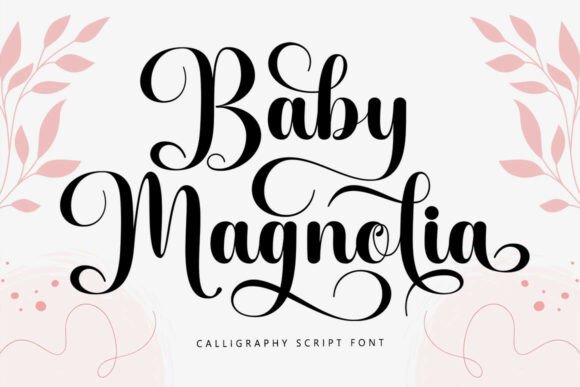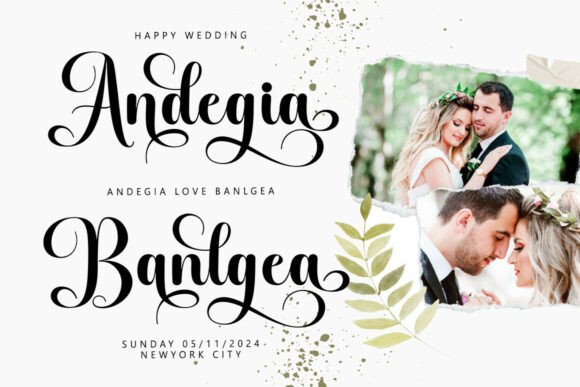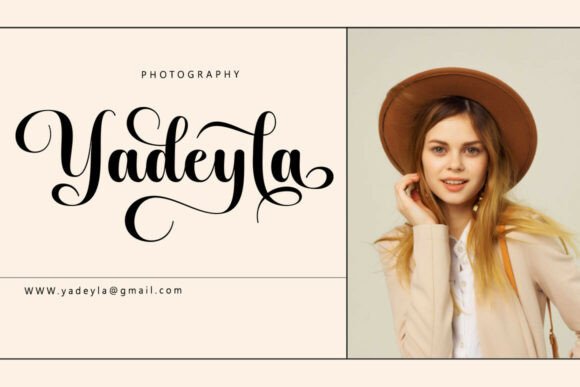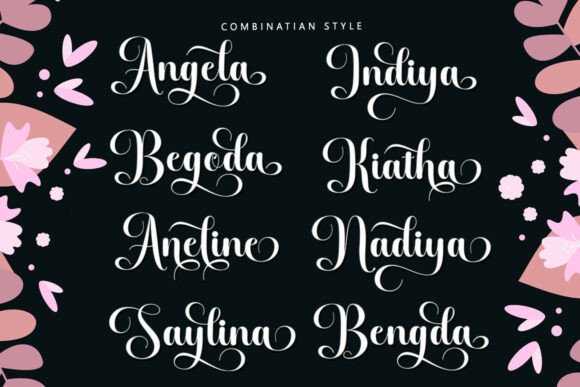
Baby Magnolia Font: Elegant Calligraphy for Wedding Branding
About the Baby Magnolia Font
Welcome to the world of Baby Magnolia Font, a typeface that will inspire your next great project. Baby Magnolia is a lovely and timeless handwritten font. It is the best choice for creating eye catching logos, branding and quotes. Every letter has a unique and beautiful touch, which will make your design come alive!
Its soft, slightly irregular forms make Baby Magnolia ideal for projects requiring a touch of handcrafted charm. Use it effectively in logos, short headlines, wedding invitations, or product packaging where its delicate personality shines. Avoid using it for large blocks of text or UI elements; its handwritten nature reduces readability in extended passages.
Baby Magnolia projects an overall friendly and elegant personality, best suited to brands focused on femininity, handmade products, or businesses emphasizing personal connection.
Baby Magnolia Font Example